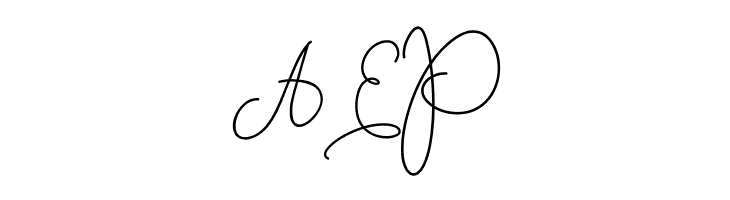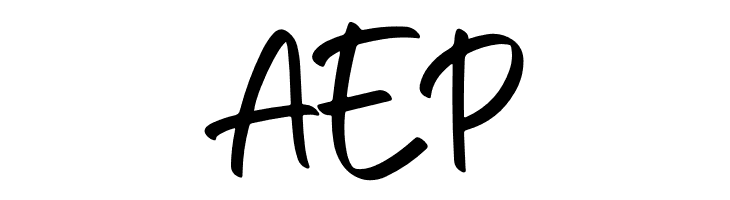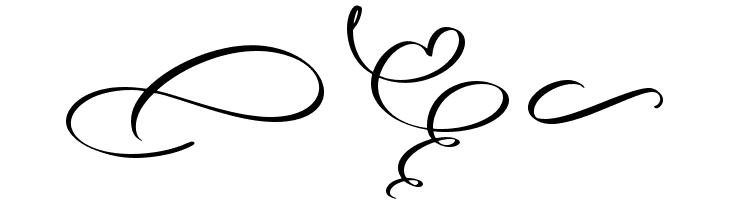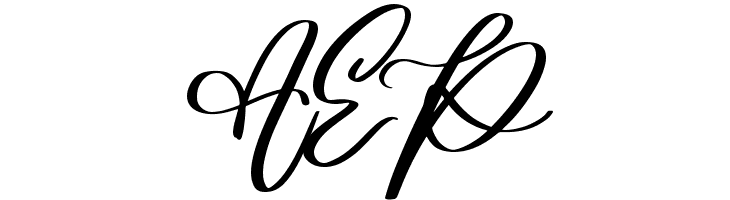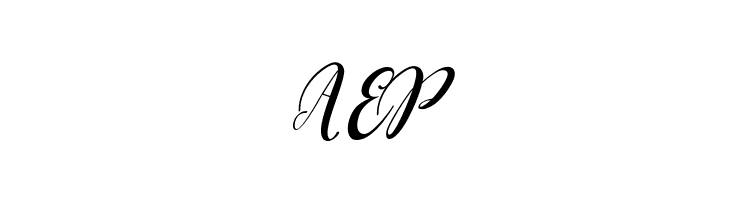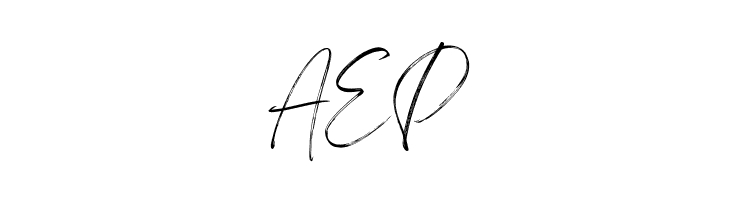
A bold, dynamic script font with calligraphic influences and elegant flourishes.
A bold, playful font with exaggerated, uneven strokes and a whimsical style.
An elegant and sophisticated cursive script font with flowing, graceful loops.
An elegant, decorative font with intricate swashes and flourishes.
A modern, handwritten script with elegant, flowing strokes and medium contrast.
A playful, handwritten font with bold, irregular strokes.
A graceful and flowing script font with elegant curves and loops.
A whimsical and elegant handwritten font with fluid, connected strokes.
An elegant script font with flowing, cursive letters and high contrast.
A bold, flowing script font with connected characters and medium contrast.